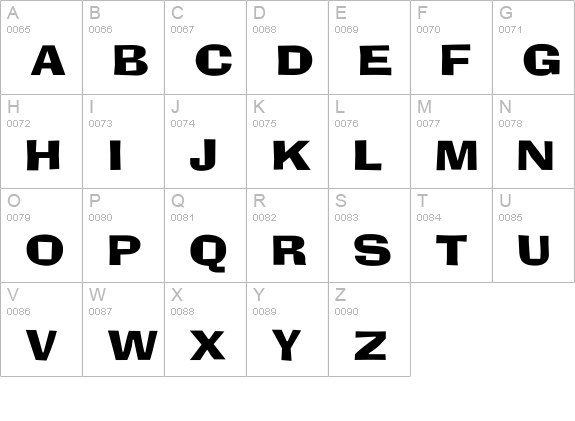
AdLib Wd Font Details
AdLib Wd font is a versatile and modern typeface that exudes elegance and sophistication. With its clean lines and stylish curves, this font is perfect for a wide range of design projects, from branding to marketing materials. What sets AdLib Wd font apart is its unique blend of timeless appeal and contemporary style, making it a go-to choice for designers looking to make a statement. The best part? AdLib Wd font is completely free to download at FontsMarket.com! So whether you're working on a personal project or a professional campaign, you can easily access this stunning font without breaking the bank. With its sleek design and effortless charm, AdLib Wd font is sure to elevate any design and leave a lasting impression on your audience.